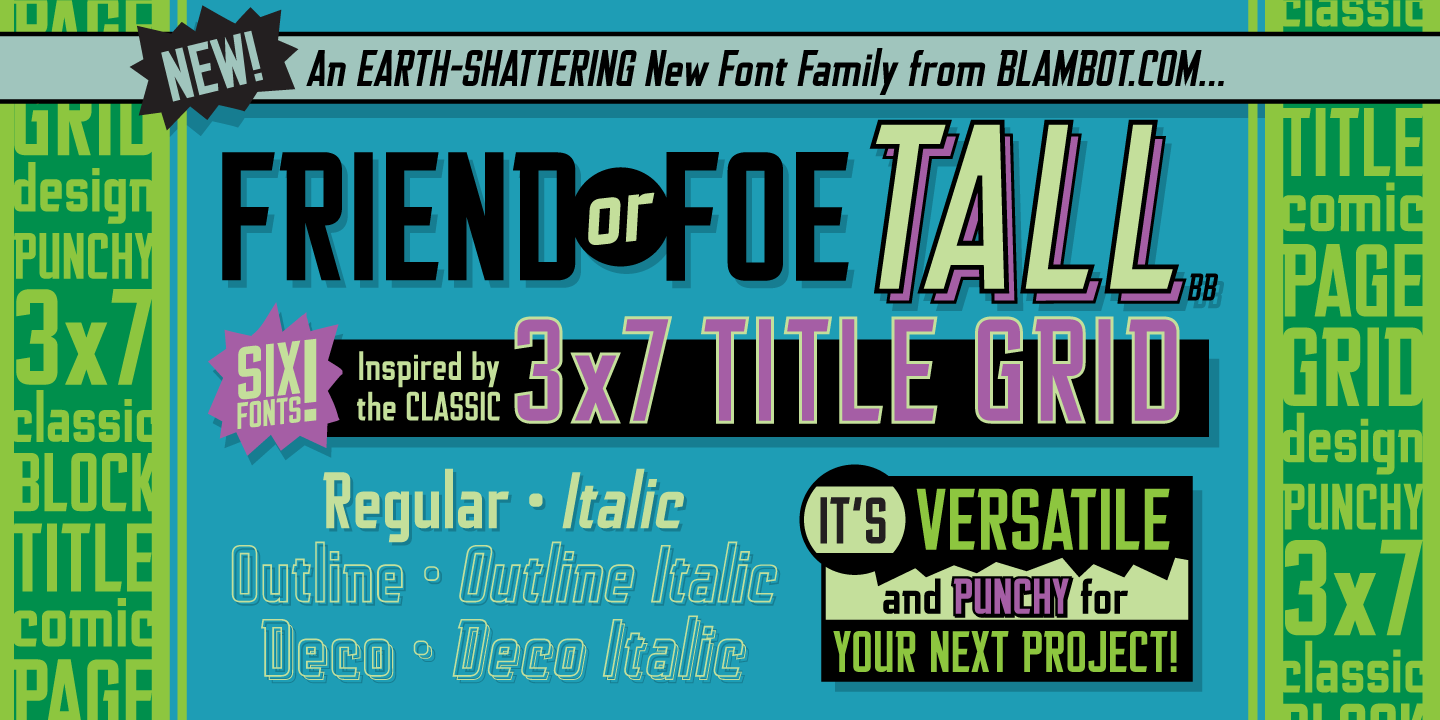
Friend Or Foe Tall BB Font is ideal for spy thriller movie titles, military reconnaissance graphics, tactical gaming interfaces, surveillance equipment branding, espionage novel covers, intelligence agency presentations, covert operations materials, security company communications, war strategy games, and mysterious investigation graphics. This commanding typeface excels in applications where strategic uncertainty and tactical awareness need to be communicated with military precision and intelligence-focused intensity that captures the essence of high-stakes decision-making and friend-or-foe identification in complex operational environments.
What makes Friend Or Foe Tall BB Font exciting is its remarkable ability to embody the tension and strategic vigilance required in situations where quick identification and tactical assessment mean the difference between safety and danger through its tall, imposing letterforms that project military authority and operational readiness. The font captures the essence of intelligence operations with its structured construction and reconnaissance-focused proportions that suggest the systematic analysis and split-second decision-making required in high-stakes tactical situations. Its precisely engineered character details and strategic personality create an atmosphere of heightened awareness that resonates with military professionals, security experts, and audiences fascinated by the complex world of intelligence and tactical operations.
The Friend Or Foe Tall BB Font family typically includes Regular and Bold weights, each maintaining the signature tactical characteristics and military precision. Some versions offer stencil-inspired variants that enhance the military aesthetic, condensed styles for efficient tactical displays, and alternative character sets with specialized military notation and identification symbols. The family may also include outline treatments and high-contrast effects that amplify the reconnaissance appeal for maximum operational impact in military and security applications.
Whether you're creating military simulation brands, tactical entertainment materials, or intelligence-focused communications, Friend Or Foe Tall BB Font Free Download delivers the strategic precision your operation-centered projects demand. Its tactical character and military styling make it an essential tool for defense contractors, security companies, and entertainment producers working in military simulation, tactical training, and espionage entertainment sectors where authentic military awareness and strategic identification protocols are fundamental to creating realistic scenarios that capture the complexity of modern tactical operations.